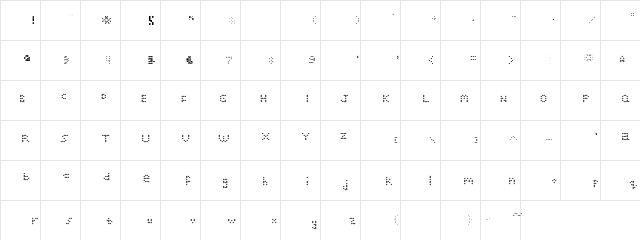
Funky Font Regular
Design Context for Funky Font Typeface
Funky Font has an approachable, lighthearted character — its loose, expressive forms are well-suited to children's content, casual branding, and fun-first design.
Great for children's books, toy packaging, family event branding, and casual consumer-facing design.
Font Pairing: Pairs well with a rounded or humanist sans for body copy, maintaining the friendly tone without relying on Funky Font to carry extended reading.
Pro Tip: Avoid using Funky Font for long passages of text — it works best for headlines, labels, and short calls to action.